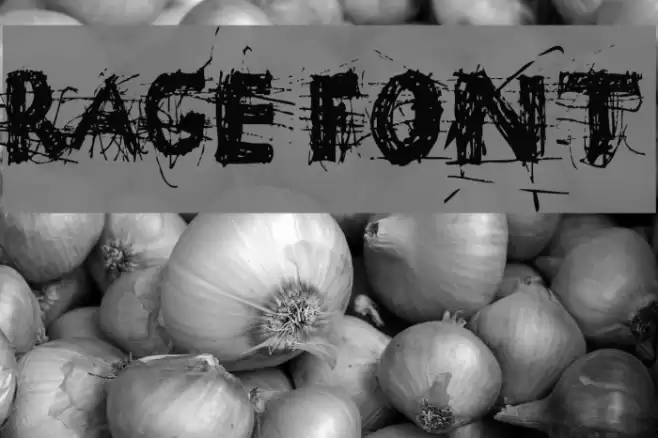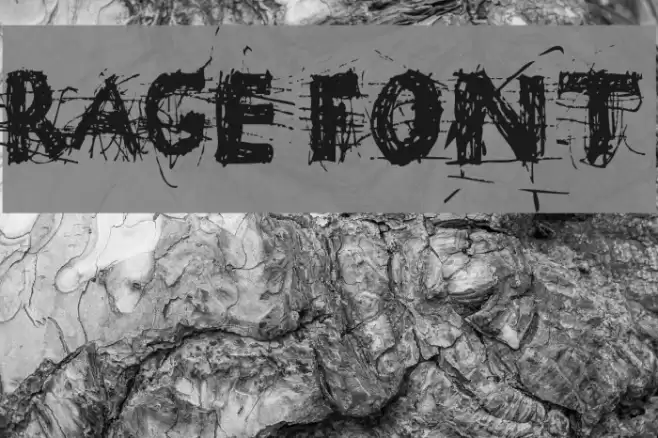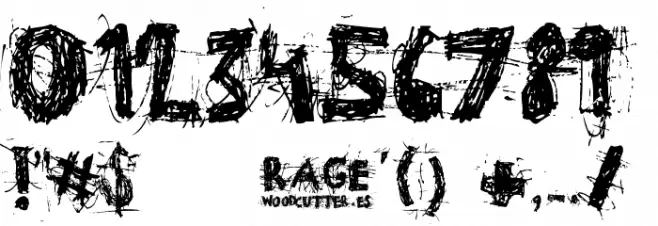
rage Font
rage Description
This font features a chaotic and distressed style, characterized by its rough, jagged edges and irregular strokes. The letters appear as if they have been scratched or etched with a sharp object, giving them a raw and aggressive appearance. This design creates a sense of urgency and intensity, making it suitable for projects that require a bold and impactful visual statement. The uppercase and lowercase letters maintain a consistent style, with each character exhibiting unique variations in texture and form. The numbers and special characters follow the same distressed aesthetic, ensuring a cohesive look across all elements.
A chaotic, distressed font with jagged edges and an aggressive style from Uncategorized fonts.
- Proposed Projects: Ideal for music album covers, horror movie posters, edgy branding, and rebellious fashion designs.
- Overall Style: Modern, Grunge